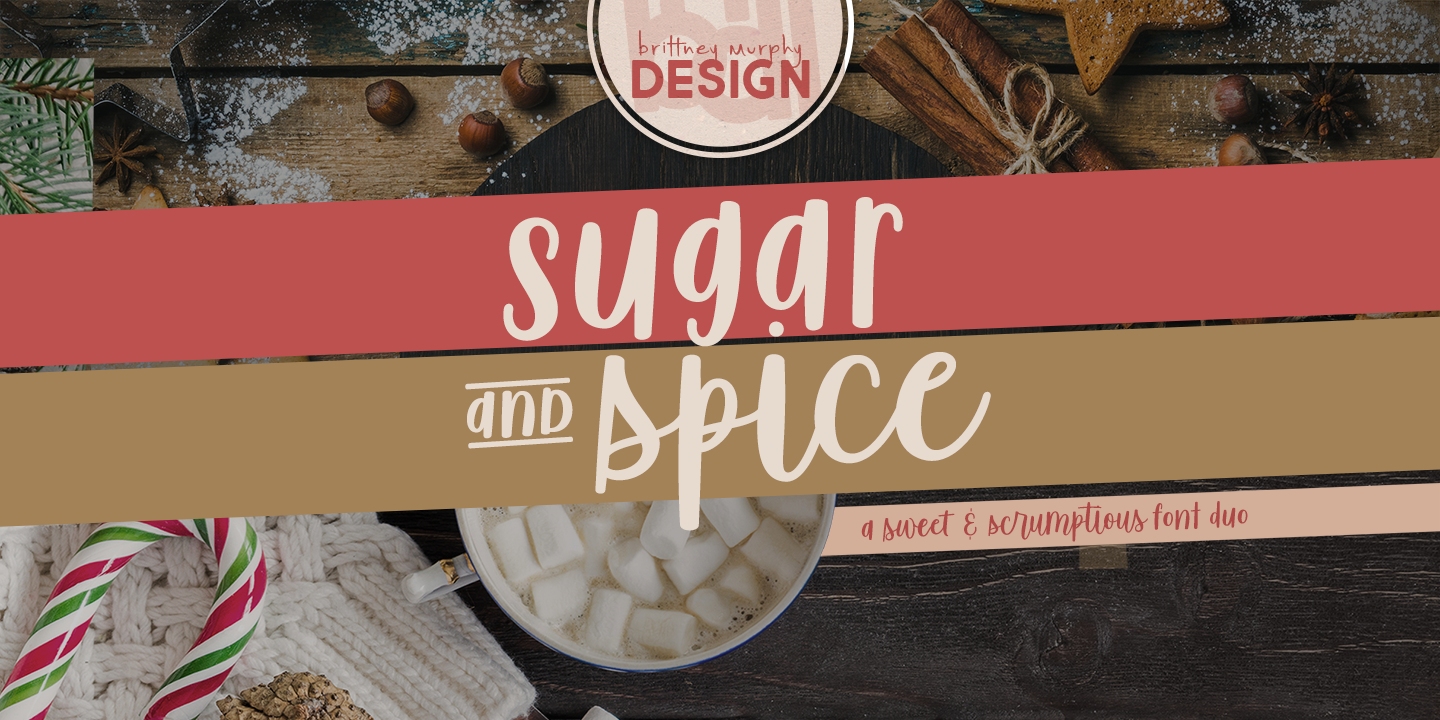
The Sugar & Spice Font is perfect for bakery branding, dessert café signage, culinary blog headers, recipe book covers, spice shop labels, artisan food packaging, cooking show graphics, gourmet restaurant menus, food festival posters, and delicious kitchen wall art.
What makes the Sugar & Spice Font exciting is its delectable ability to capture the perfect balance between sweet indulgence and savory sophistication through charming letterforms that embody the warmth and comfort of home cooking and artisanal culinary craftsmanship. This appetizing typeface features organic curves, recipe-inspired proportions, and kitchen-tested character variations that instantly evoke the cozy atmosphere of grandmother's kitchen where love is the secret ingredient in every dish. Each letter radiates the inviting warmth and delicious promise of homemade treats and carefully crafted culinary experiences.
The Sugar & Spice Font family includes regular, bold, light, and decorative versions, along with culinary symbols, kitchen ornaments, and food-themed decorative elements that enhance its gastronomic appeal across various culinary and hospitality design applications.
Whether you're creating culinary brand identities or designing appetizing food marketing materials, Sugar & Spice Font Free Download delivers maximum flavor and authentic kitchen charm. Its lovingly crafted delicious letterforms ensure excellent readability while maintaining that essential homemade quality that speaks to food lovers and culinary enthusiasts seeking genuine comfort and gastronomic satisfaction. The font's culinary features include contextual alternates, recipe-ready ligatures, and flavorful variations that automatically create authentic kitchen aesthetics. Culinary brands and food industry professionals consistently choose this font for projects requiring genuine gastronomic credibility and homestyle appeal. The Sugar & Spice Font transforms ordinary text into mouthwatering expressions of culinary delight, making it an essential ingredient in any designer's food typography pantry.